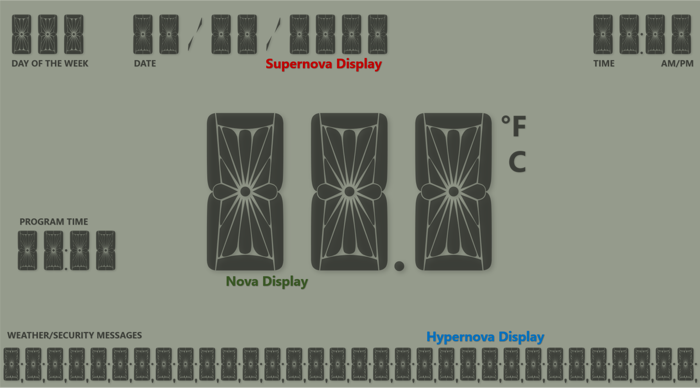
Hypernova Display Font
More info from Nihar Mazumdar
The hypernova display is the densest alphanumeric display possible. It can range from 39+ segments, however more segments than this is not really necessary. The side segments have been split for more interesting possibilities. If you want more capabilities than this, look at a dot matrix display.